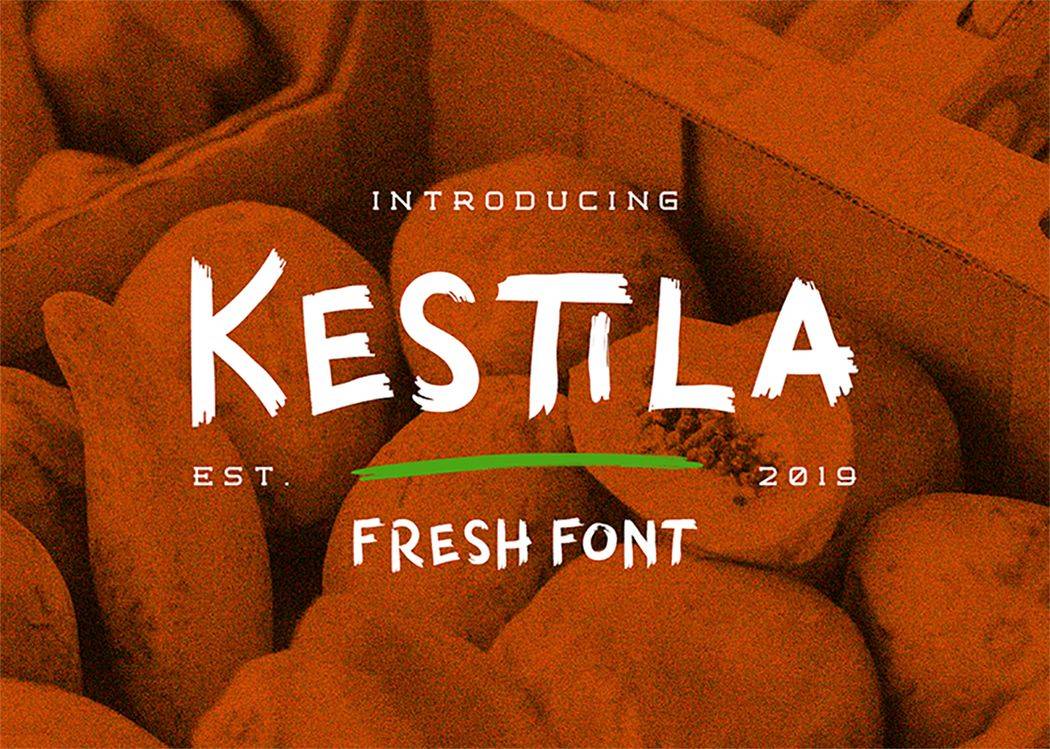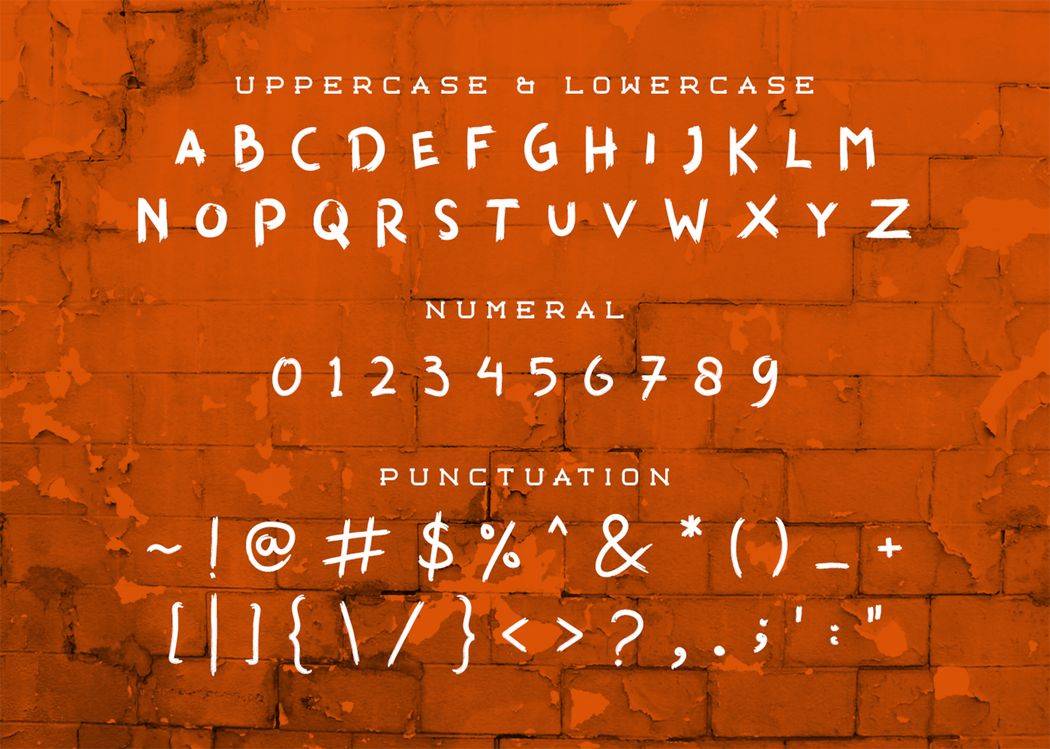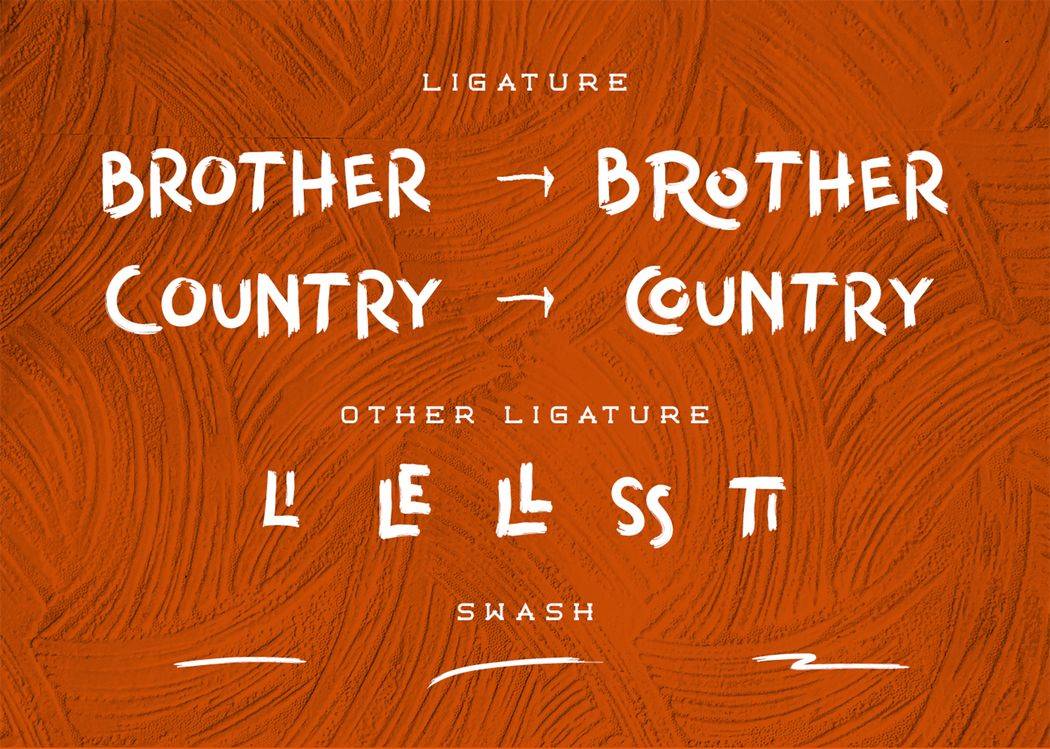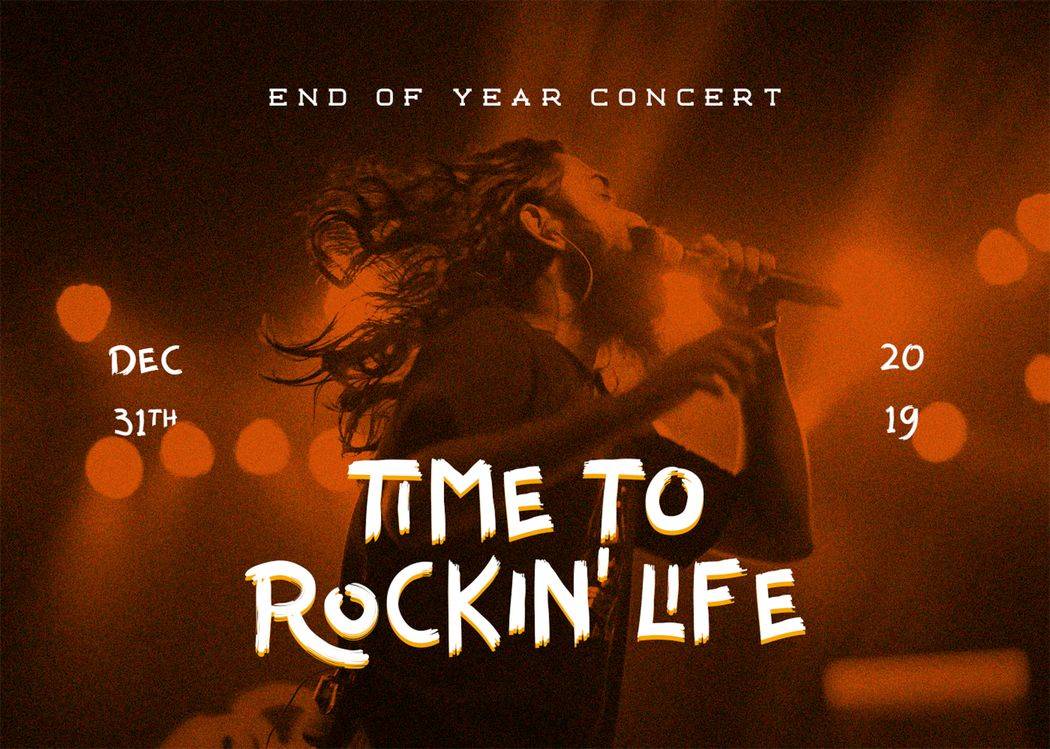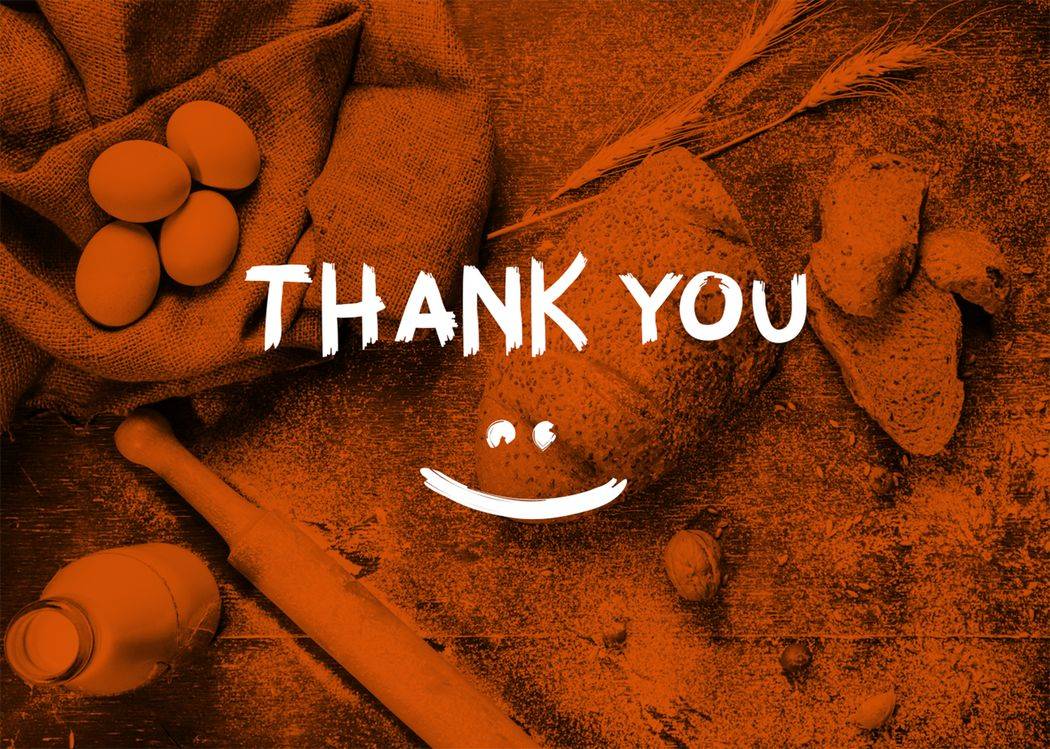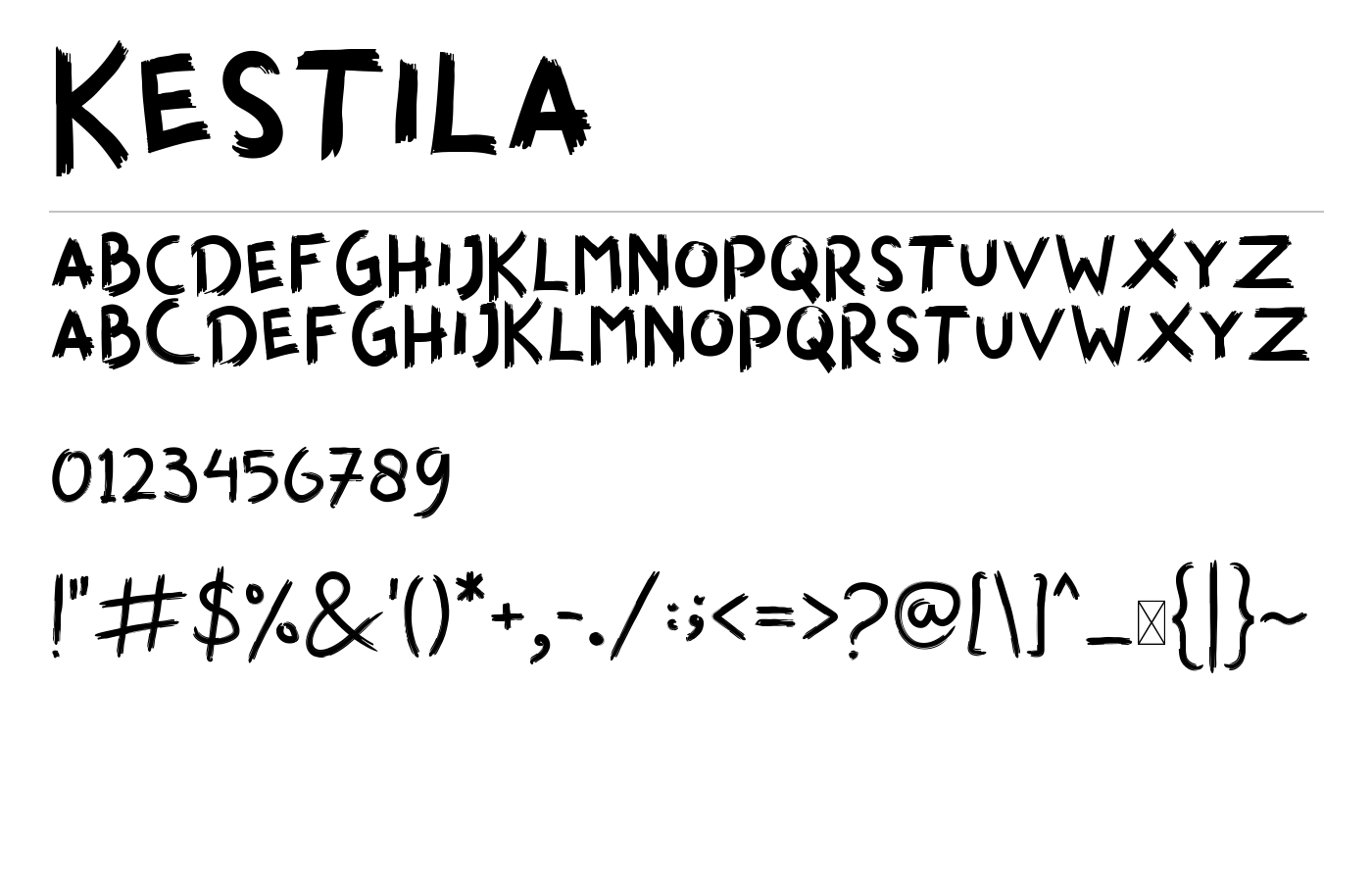
Kestila is a casual, hand-drawn sans serif font with a playful and expressive character, featuring rough, brush-like strokes that give it a dynamic and informal feel. Its irregular letterforms and bold weight make it ideal for creative designs, greeting cards, posters, and branding that seeks a lively, personal touch. This font works best for headlines and display use, where its unique style can stand out and add personality.
Kestila Font
About Kestila Font